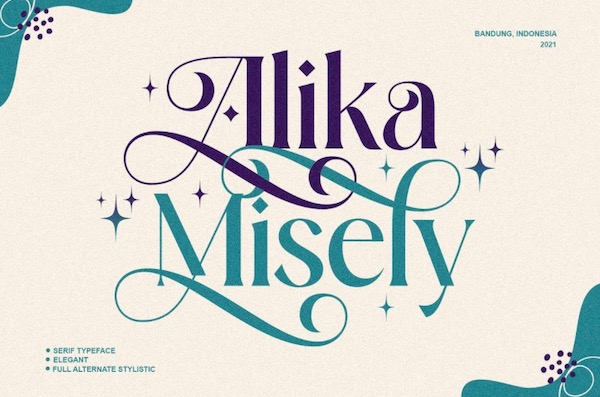
Introducing a new Serif modern font from INKSUN™, Alika Misely Font. It’s an elegant classy Serif display font that has a classic, feminine, and elegant style wrapped with a beautiful Alternate stylist.
The Alika Misely font is perfect for various projects like logos & branding, invitations, stationery, wedding designs, social media posts, advertisements, printed quotes, product packaging, product designs, labels, photography, watermarks, special events, or anything else.
Feature
- Uppercase
- Lowercase
- Numeral
- Functional
- Ligature
- 170 Stylistic
- Multilingual
Alika Misely Serif Font